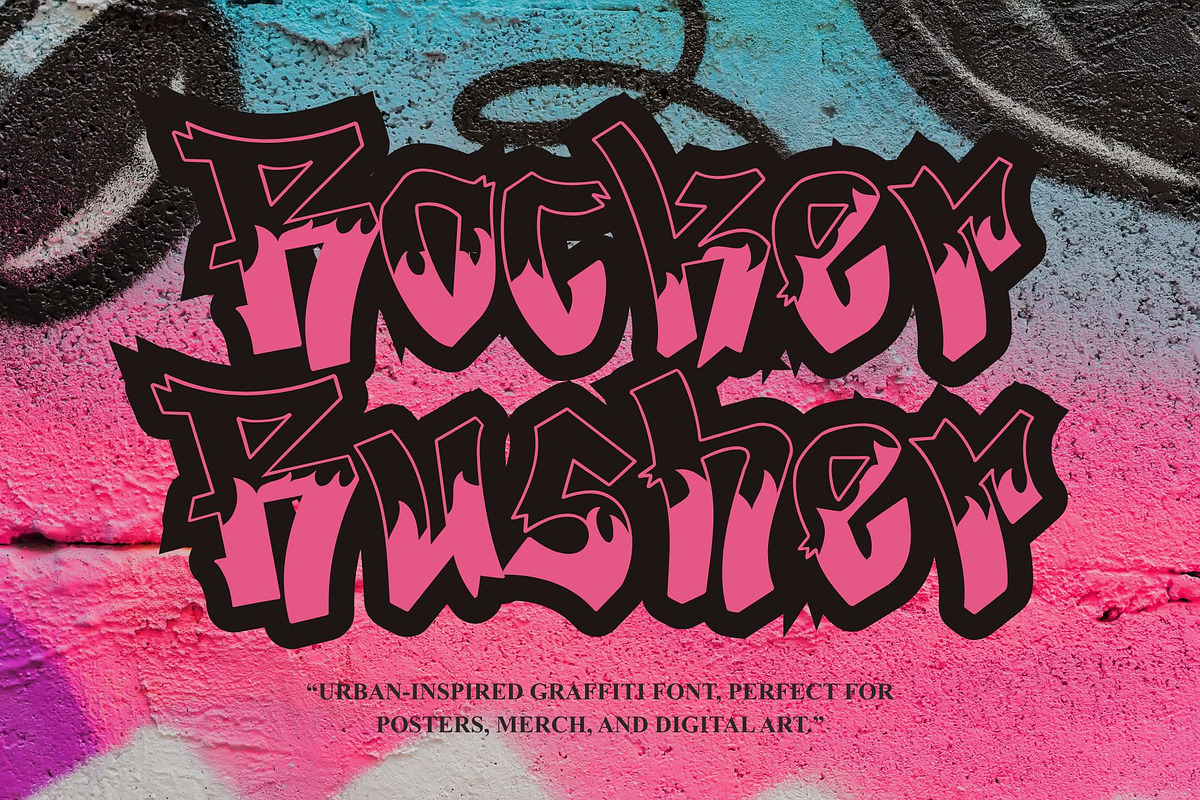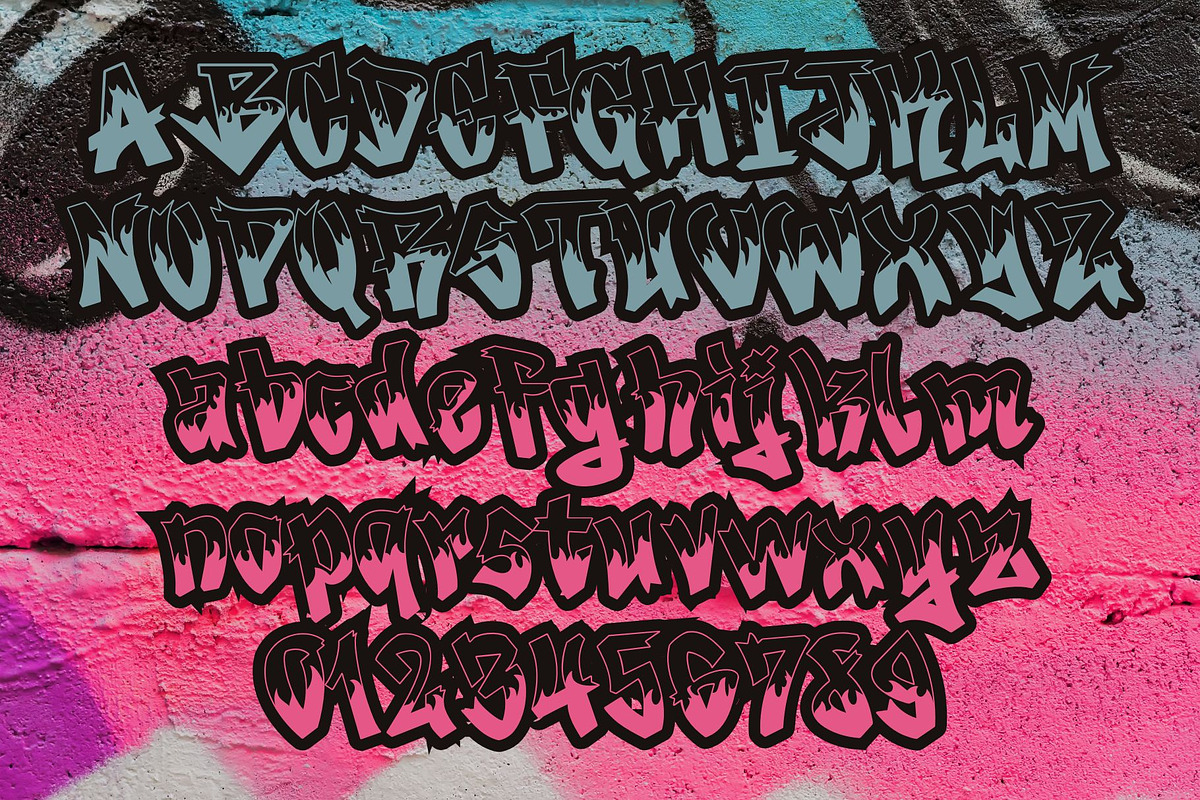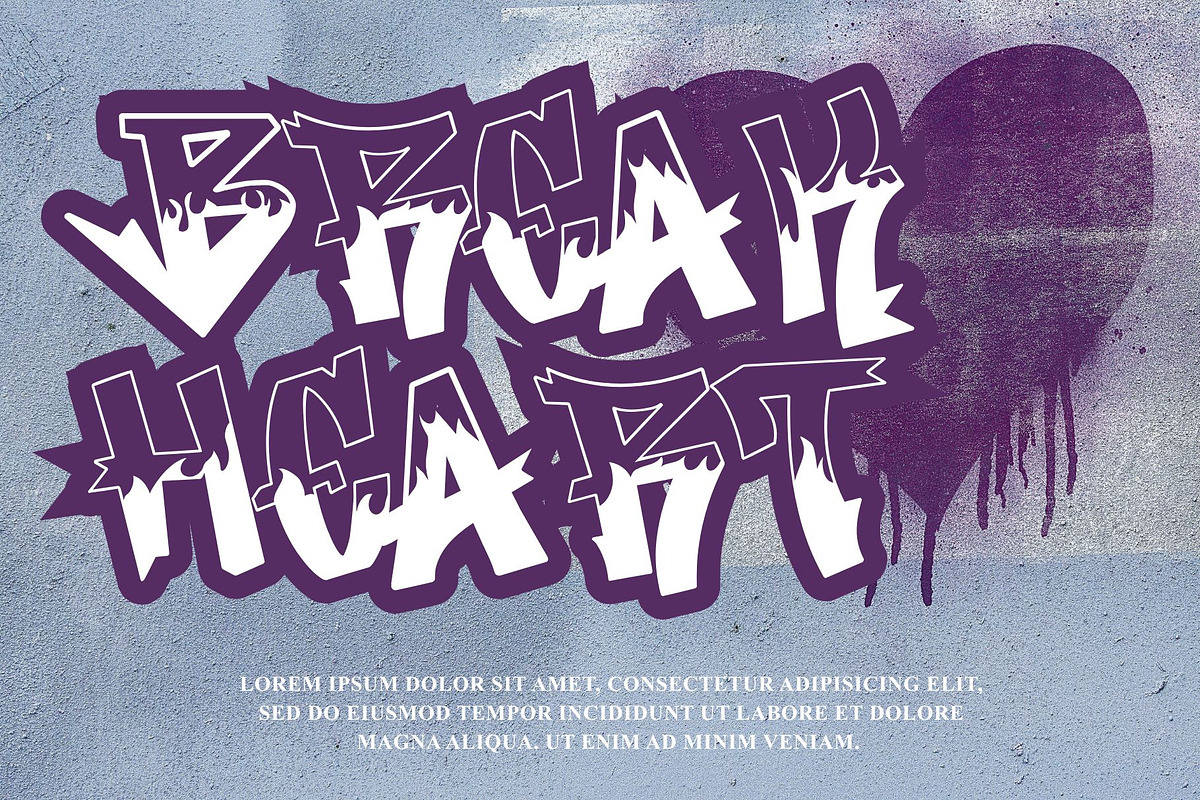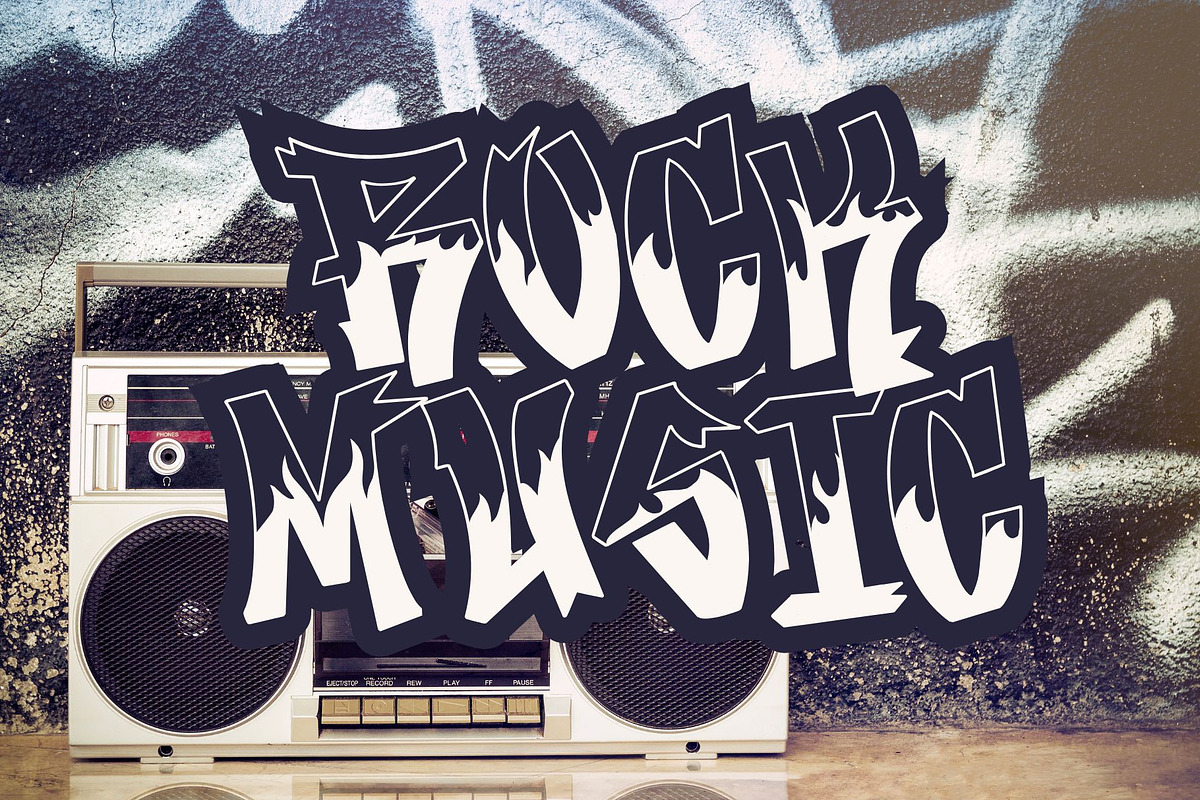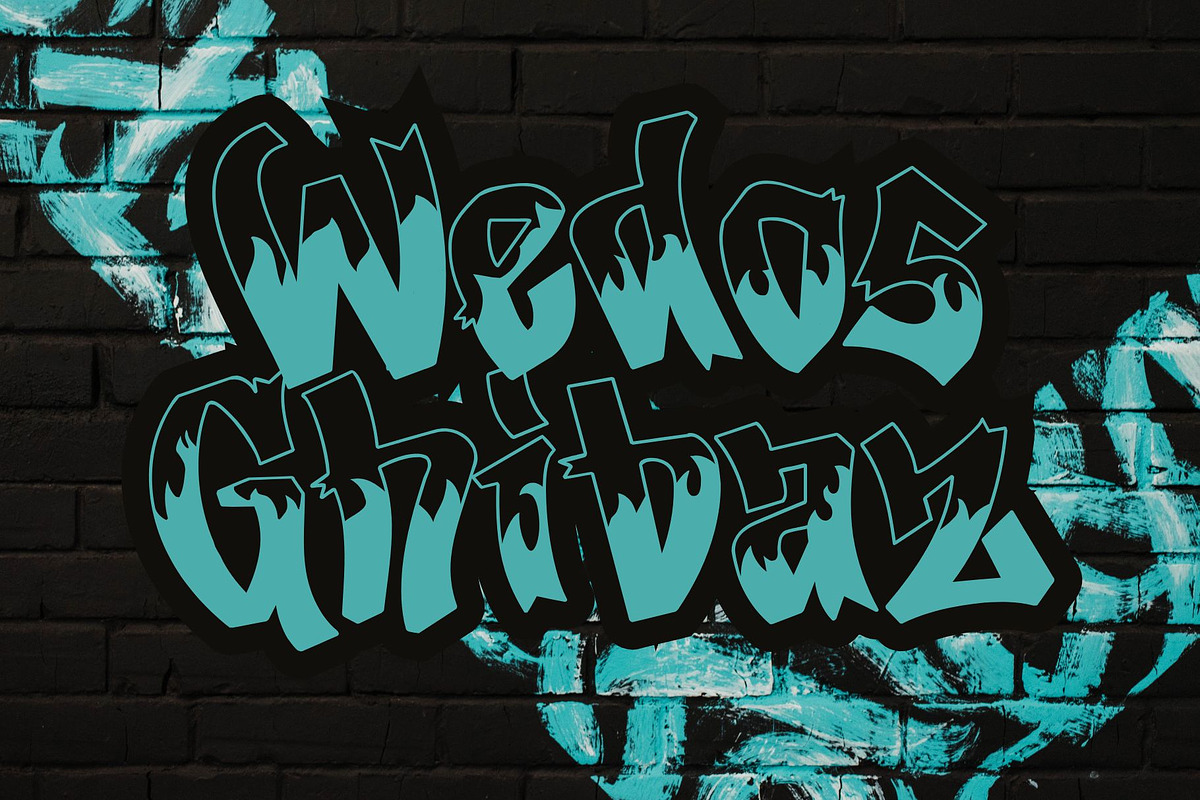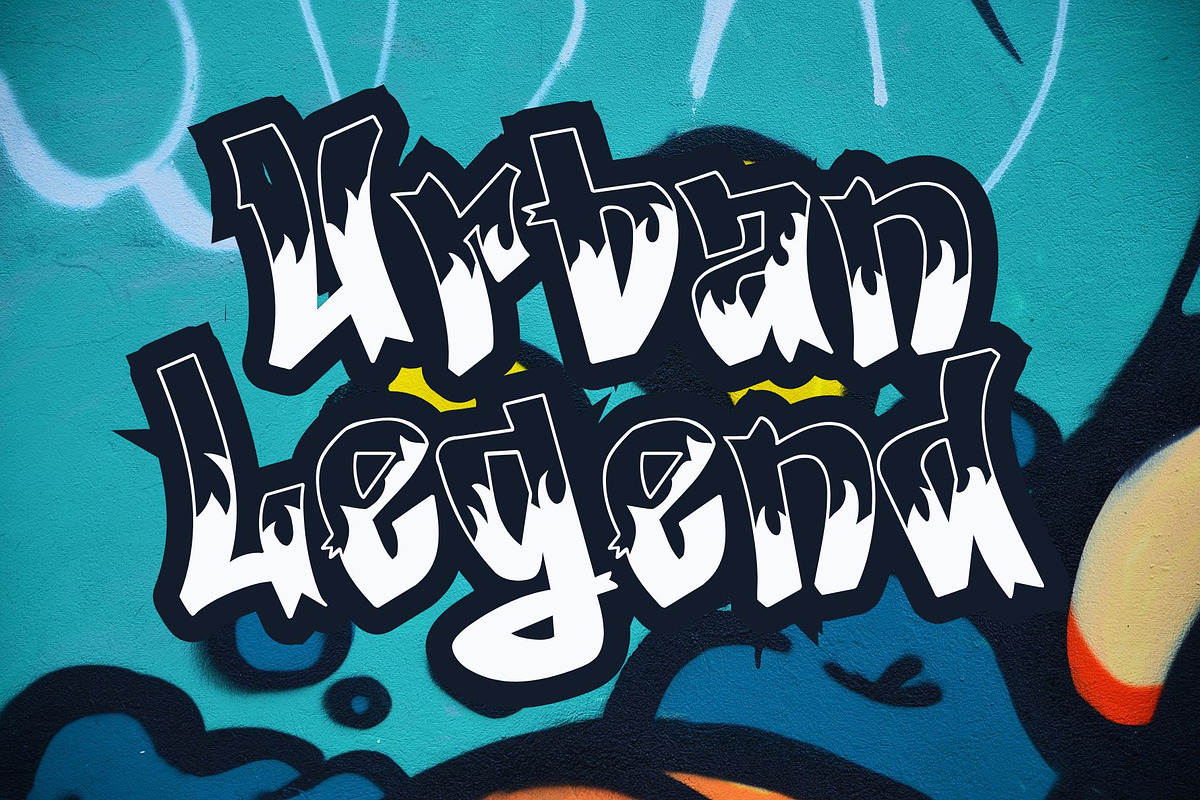
Rocker Rusher
Introducing the breathtaking graffiti font that emanates potent, cutting-edge, and metropolitan energy. This font is the ideal option for enlivening posters, accentuating streetwear, breathing life into digital art, and essentially any creative endeavor requiring that contemporary street-style flair. Elevate your designs from the ordinary to distinctly urban with this transformative typeface.